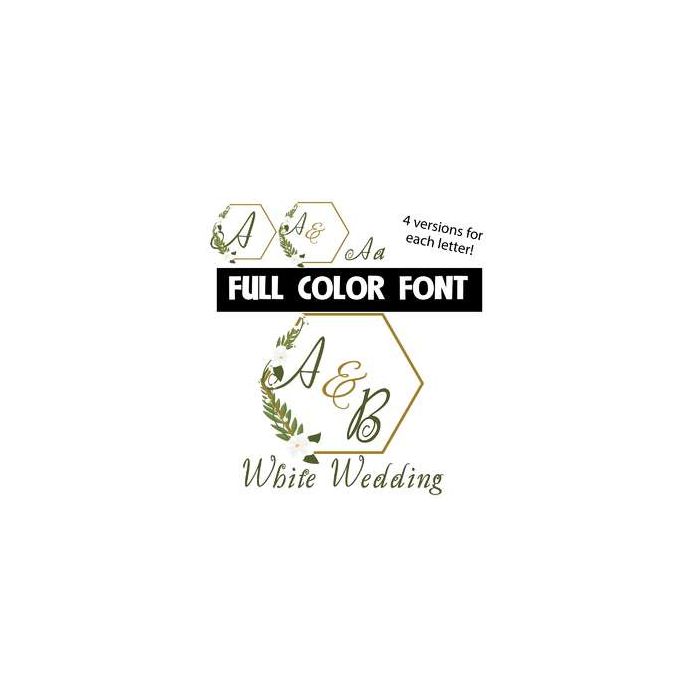
This beautiful, full-color font features monogram letters with white flowers for the uppercase. The lowercase is created in the same way but set up to add an additional letter. Both a simplistic upper and lowercase are available through your system's character map using alt case. This font works best for titles, displays, posters and more. Please note color fonts will show as black in non compatible programs. This font type is compatible with Silhouette Studio.